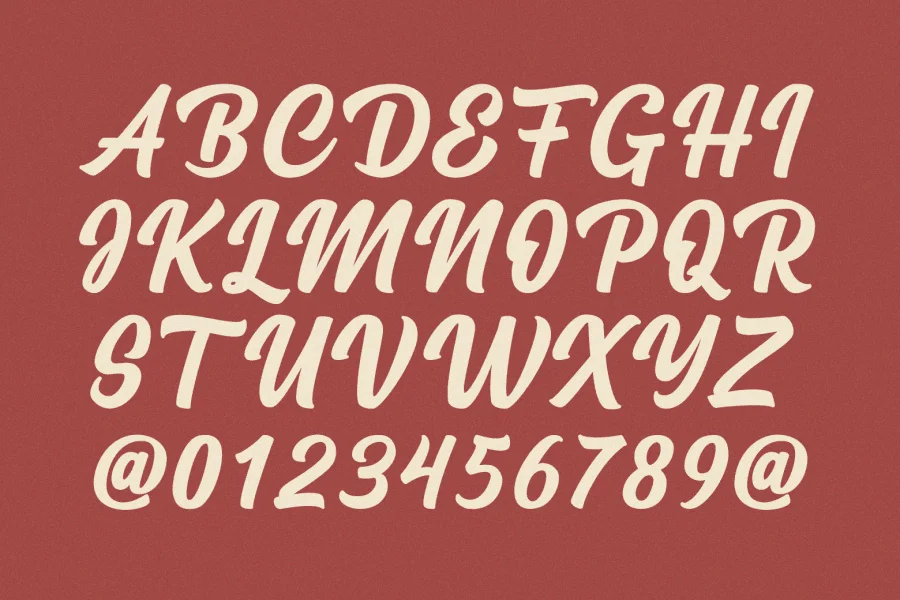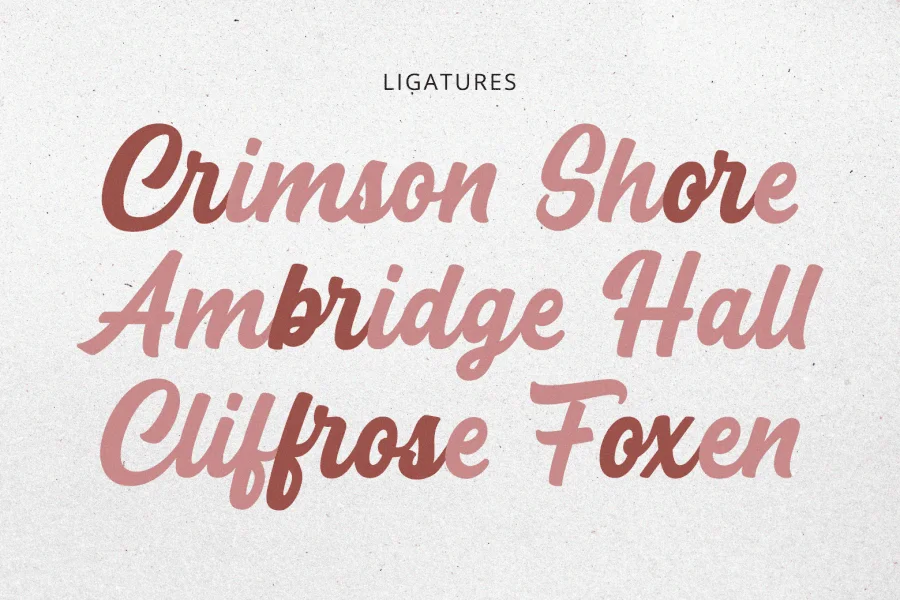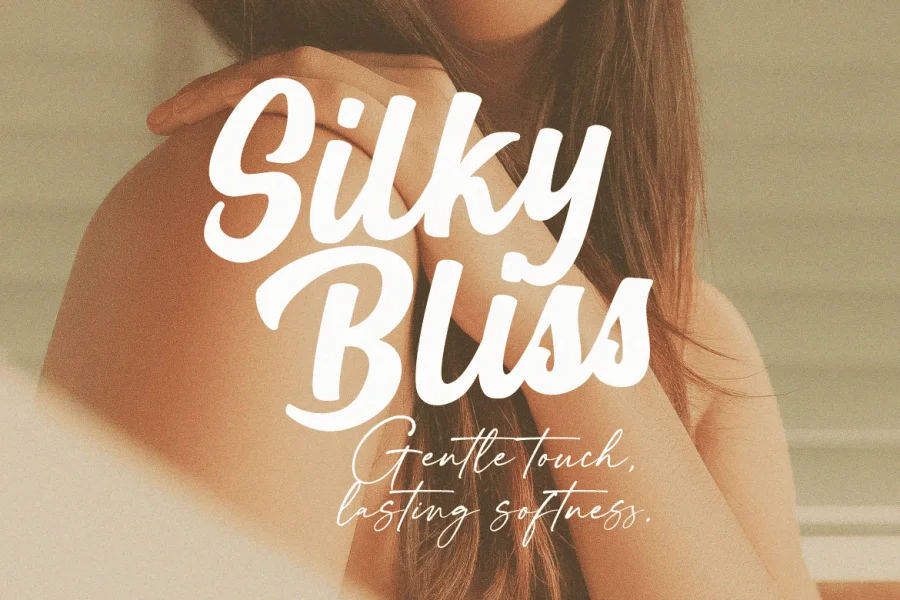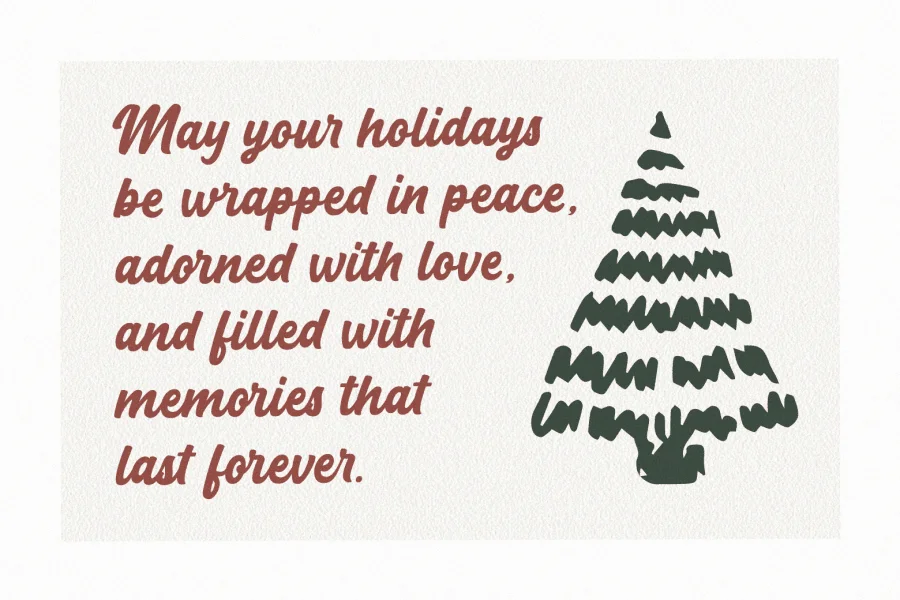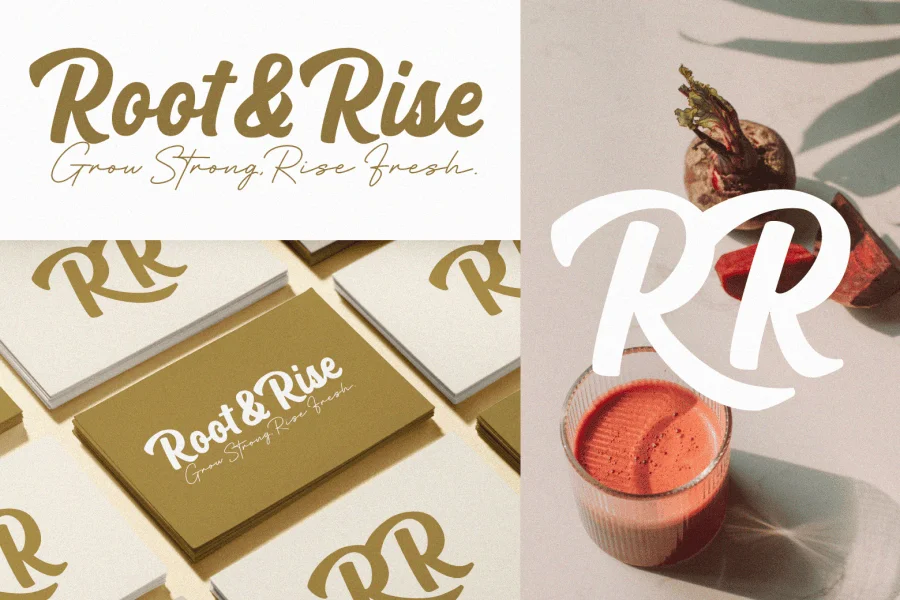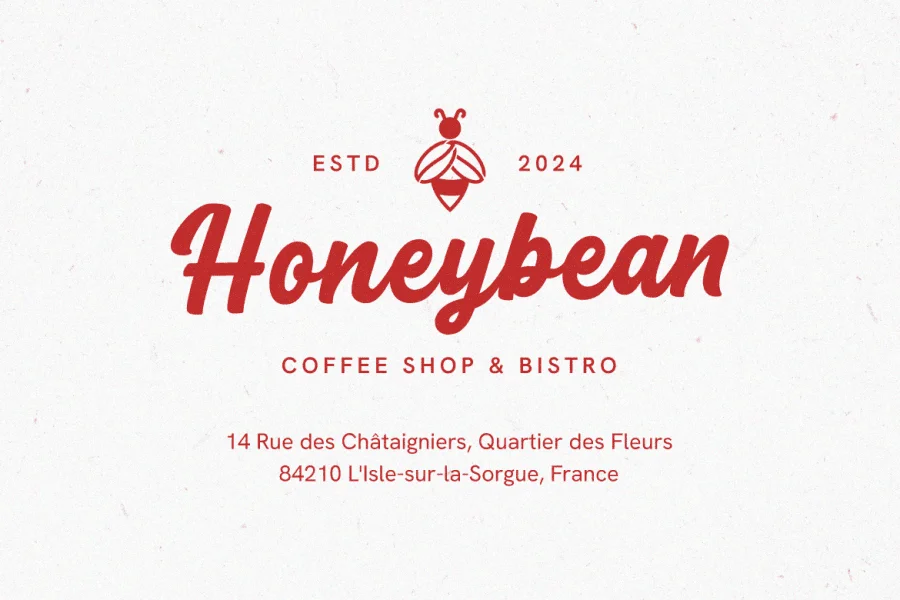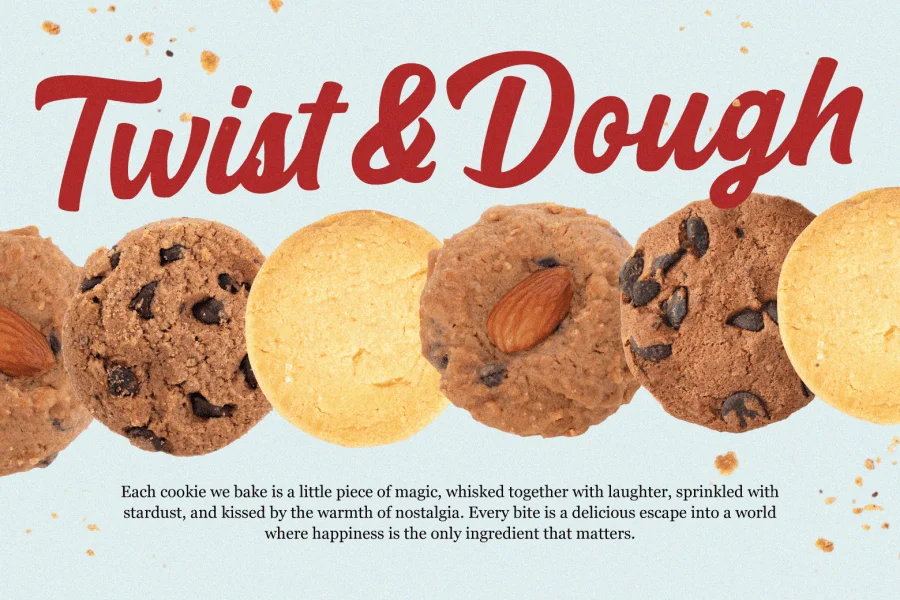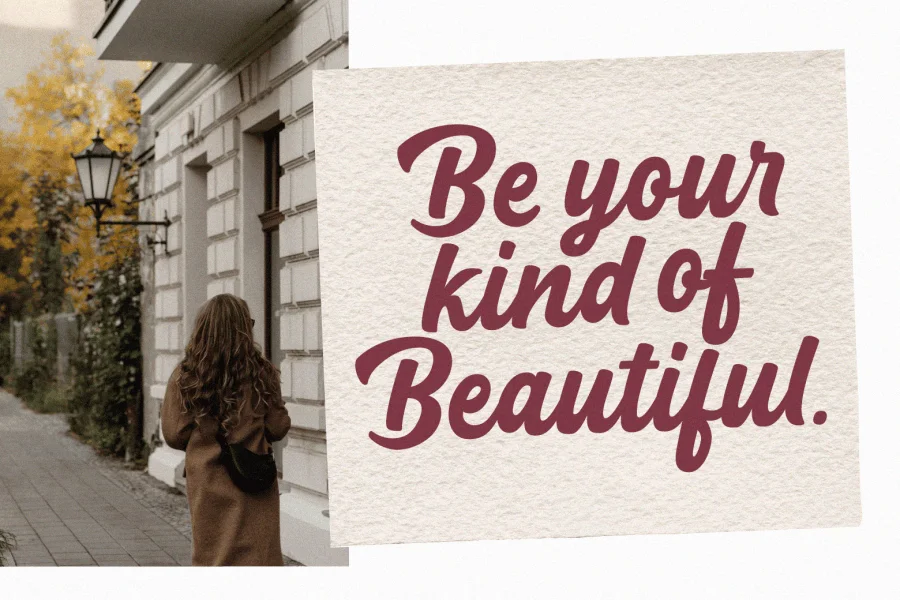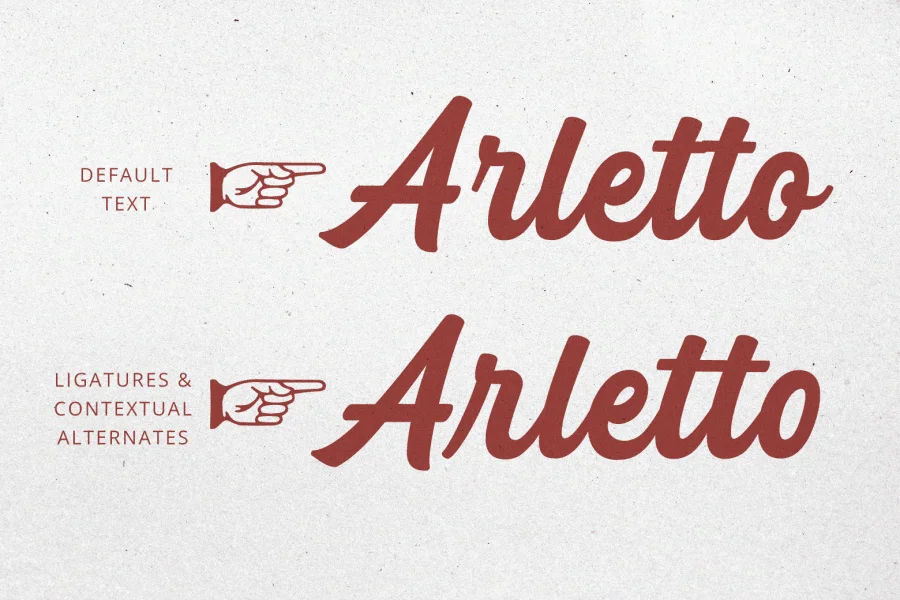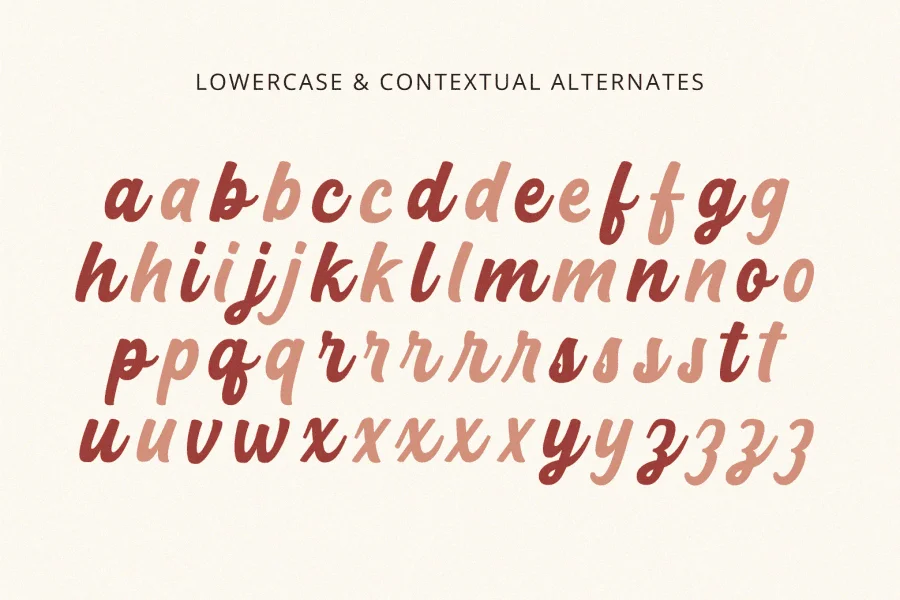
Cream Cake is a sweet and charming script font that blends retro nostalgia with modern versatility. Its flowing curves and playful details are perfect for creating eye-catching logos, whimsical invitations, greeting cards, branding, or vibrant packaging. Whether for headlines or delicate accents, Cream Cake adds personality and a delightful vintage flair to any design.